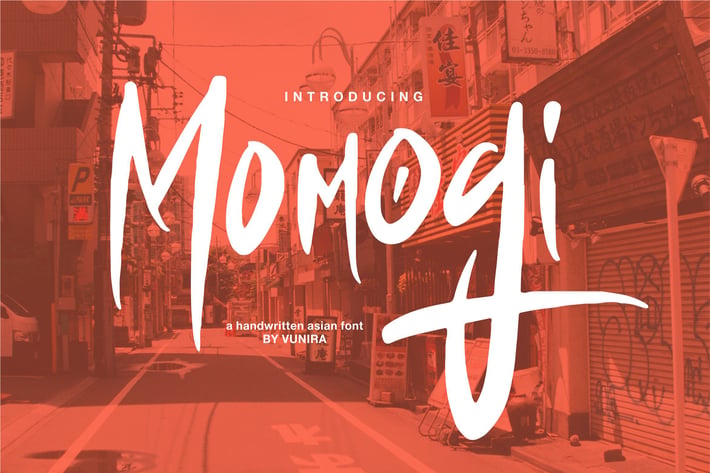
Momogi | A Handwritten Asian Font
Momogi | A Handwritten Asian Font with a calligraphy style, So beautiful on invitation like greeting cards, branding materials, business cards, quotes, posters, and more!